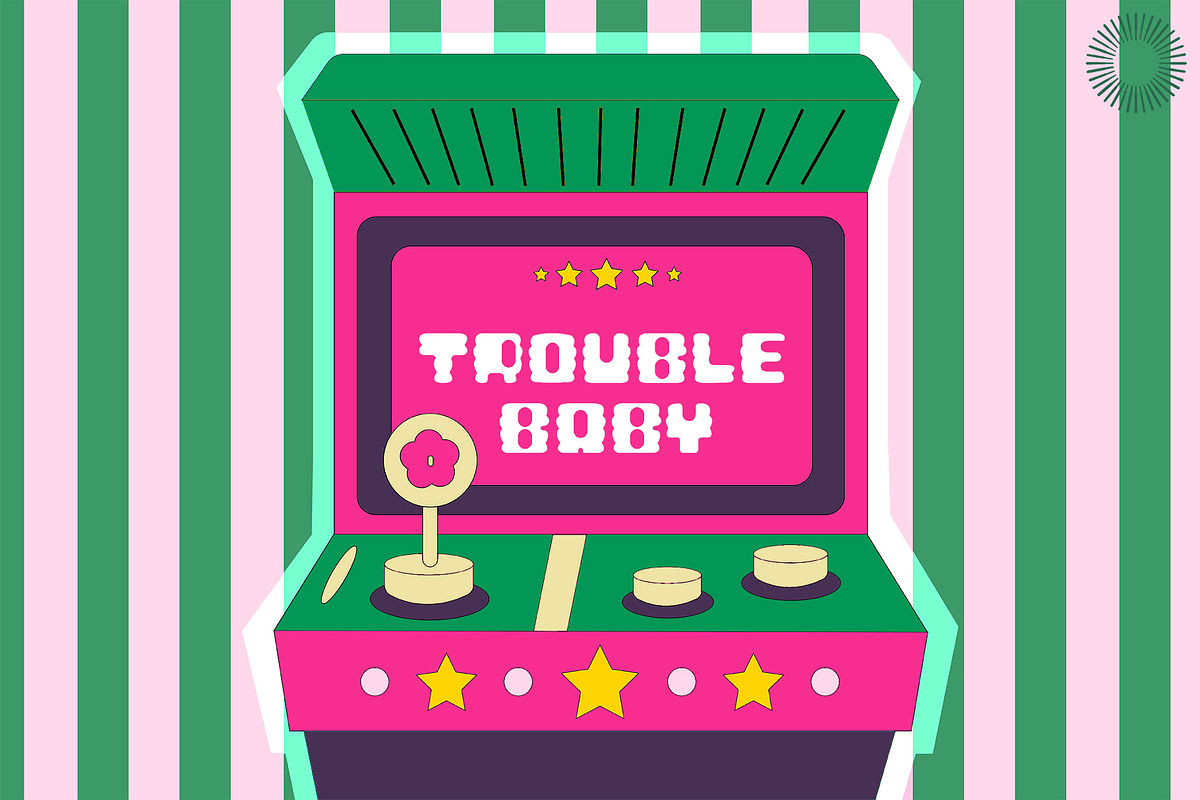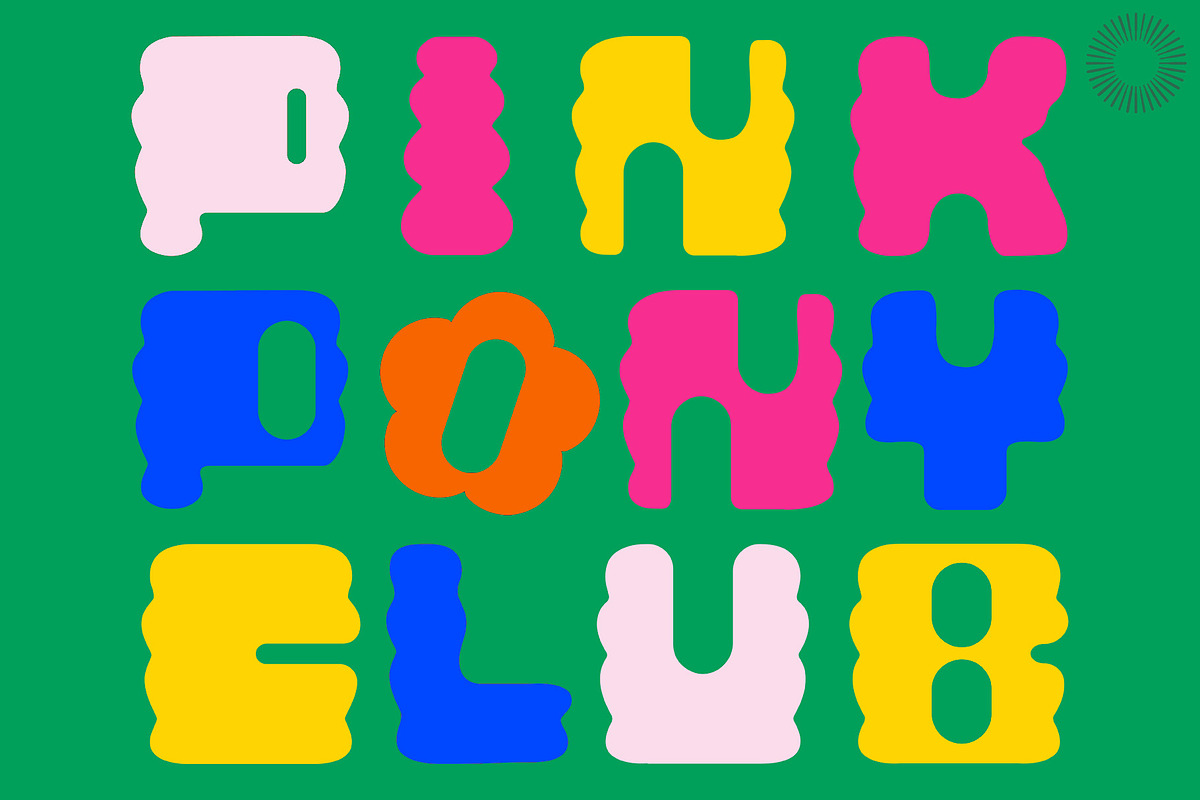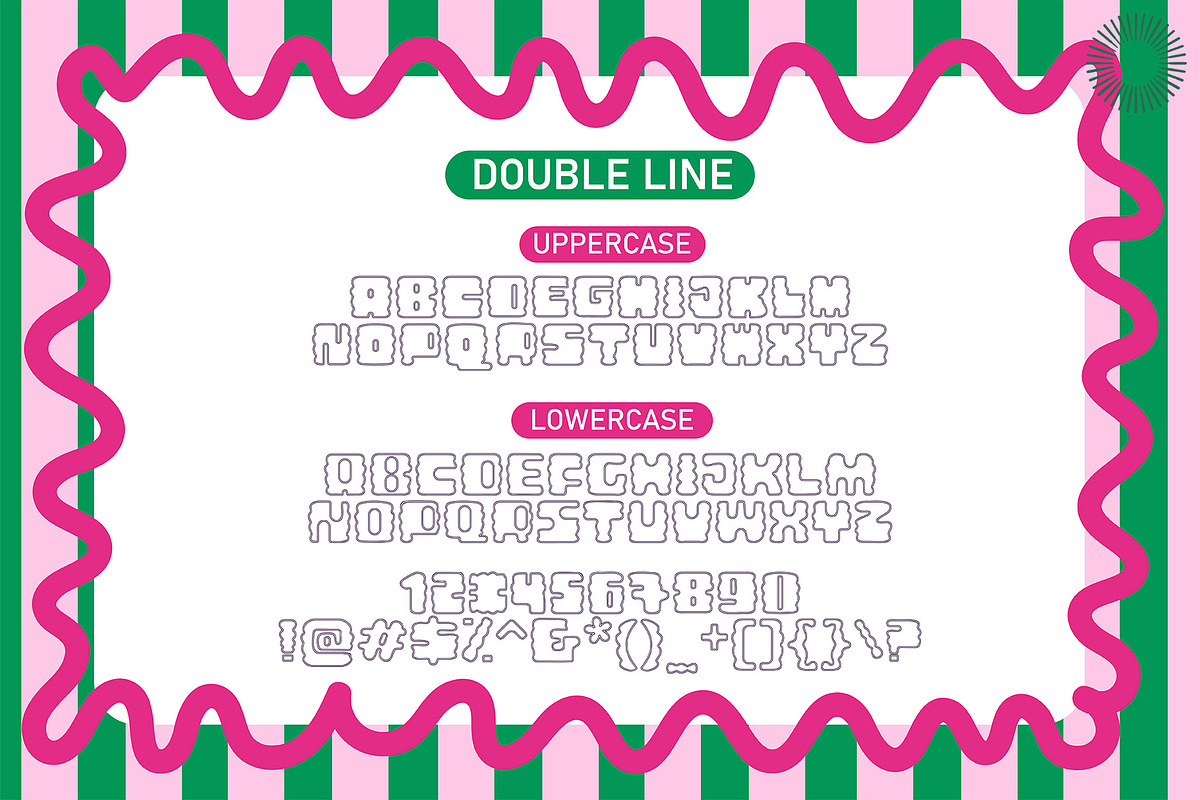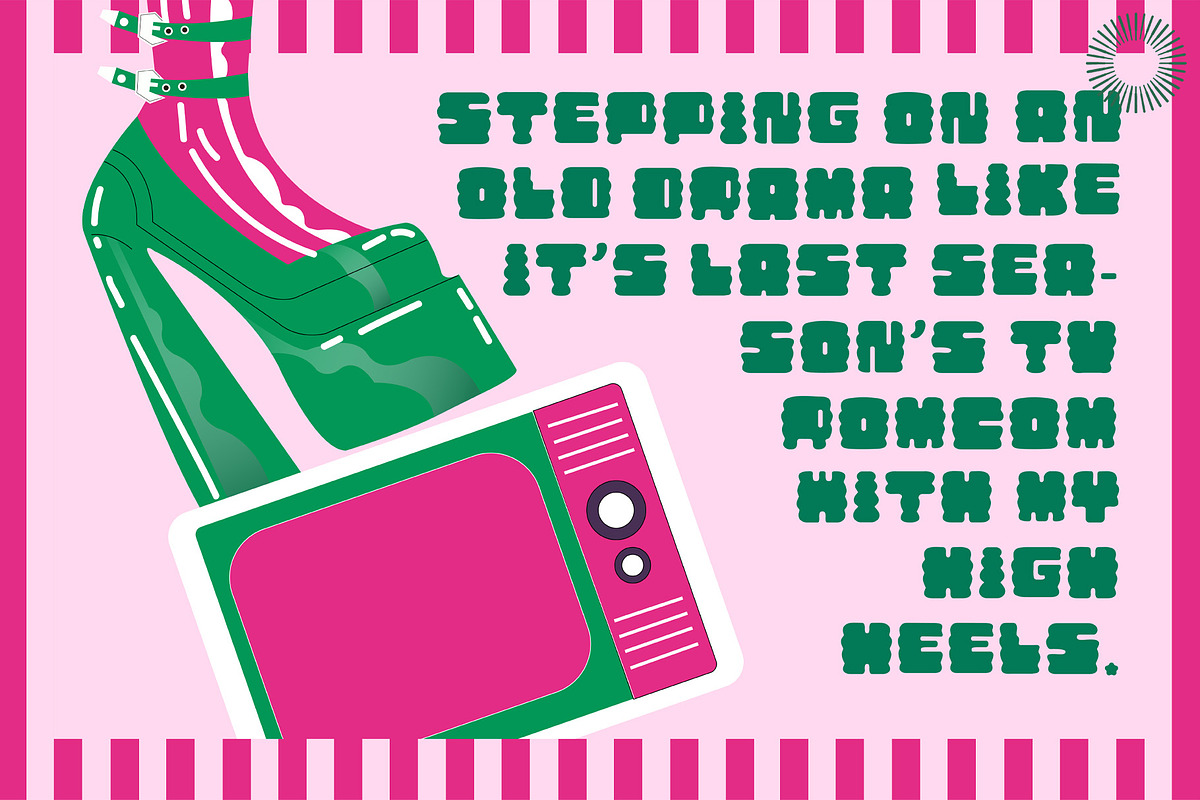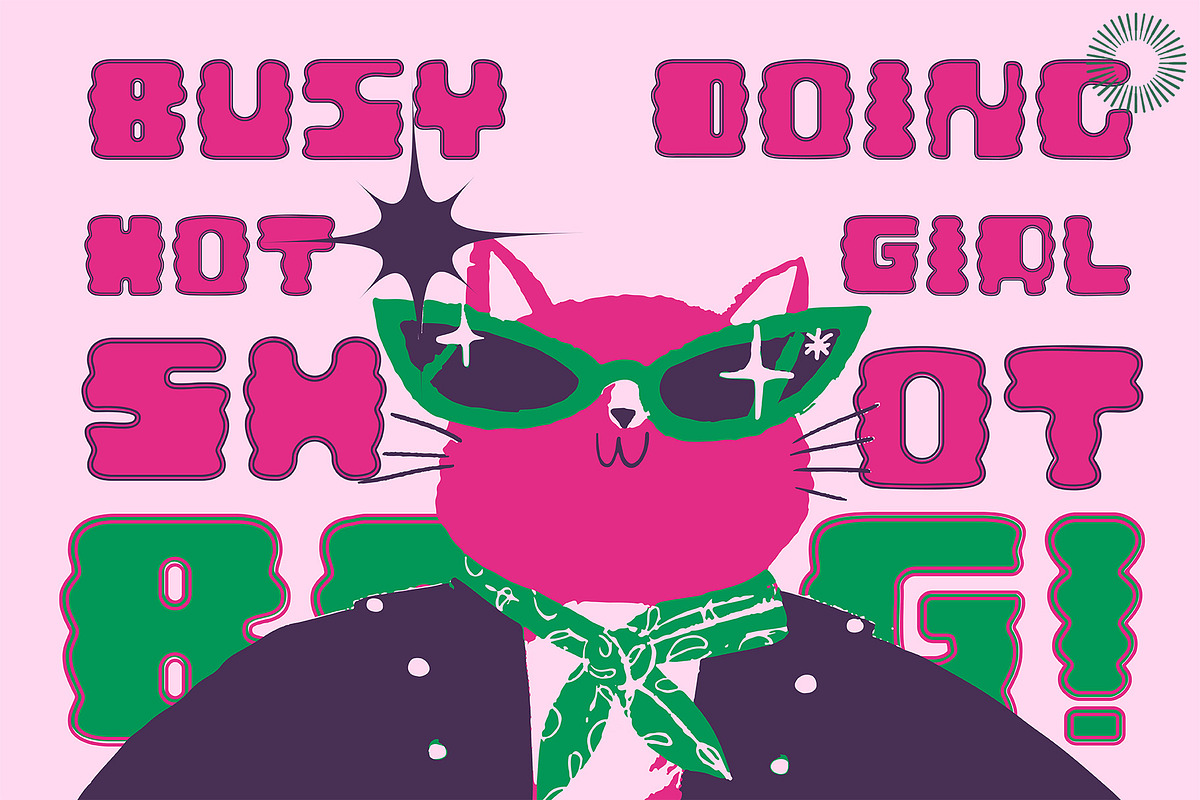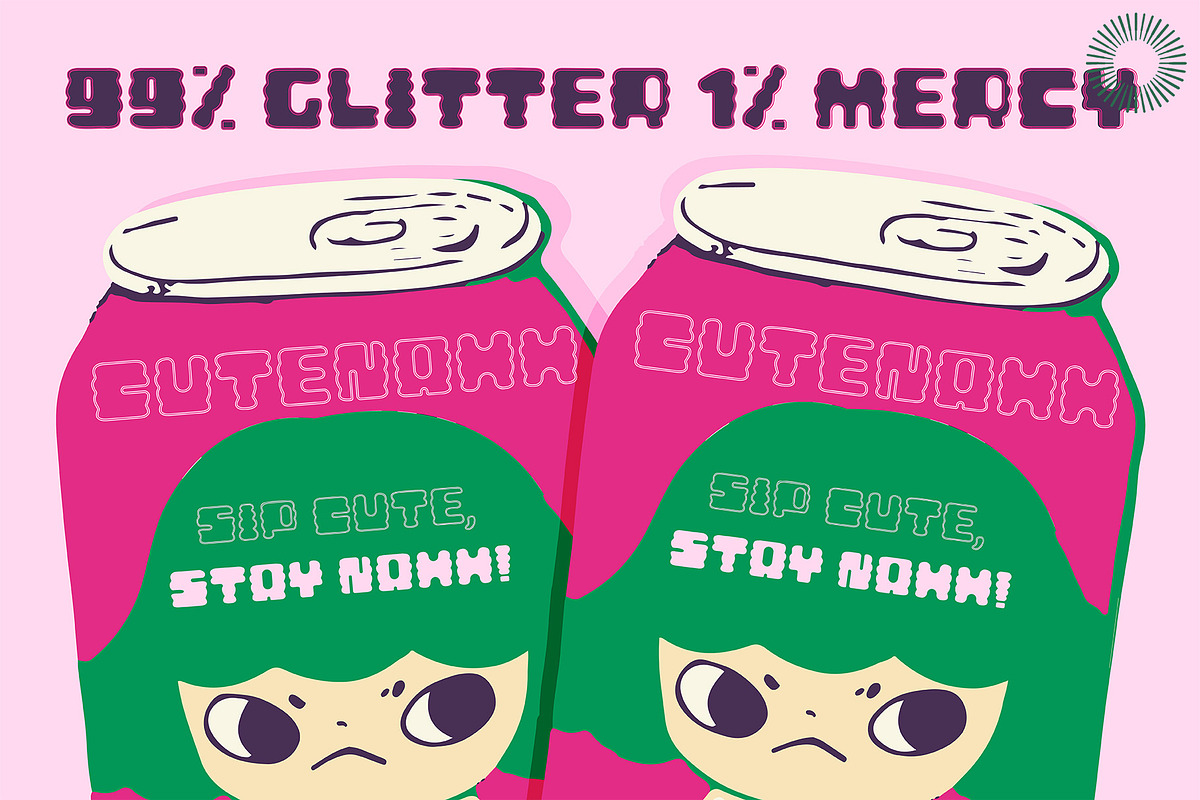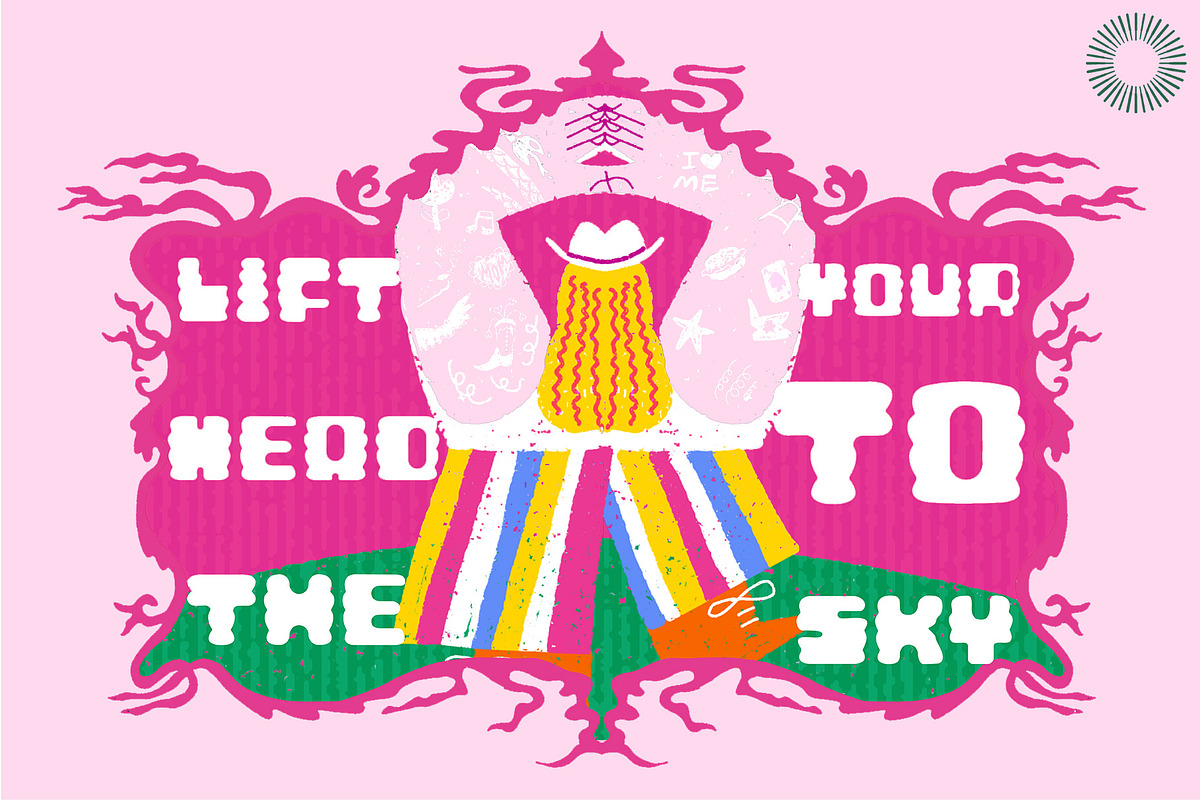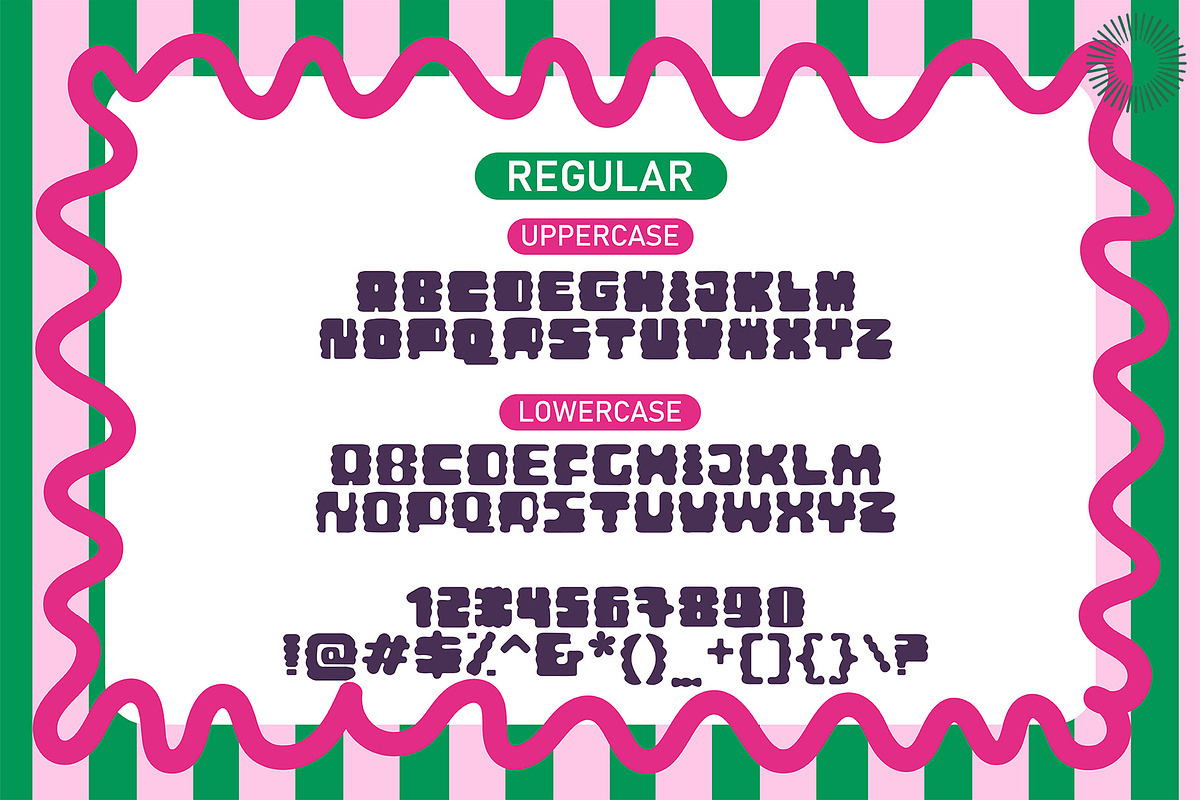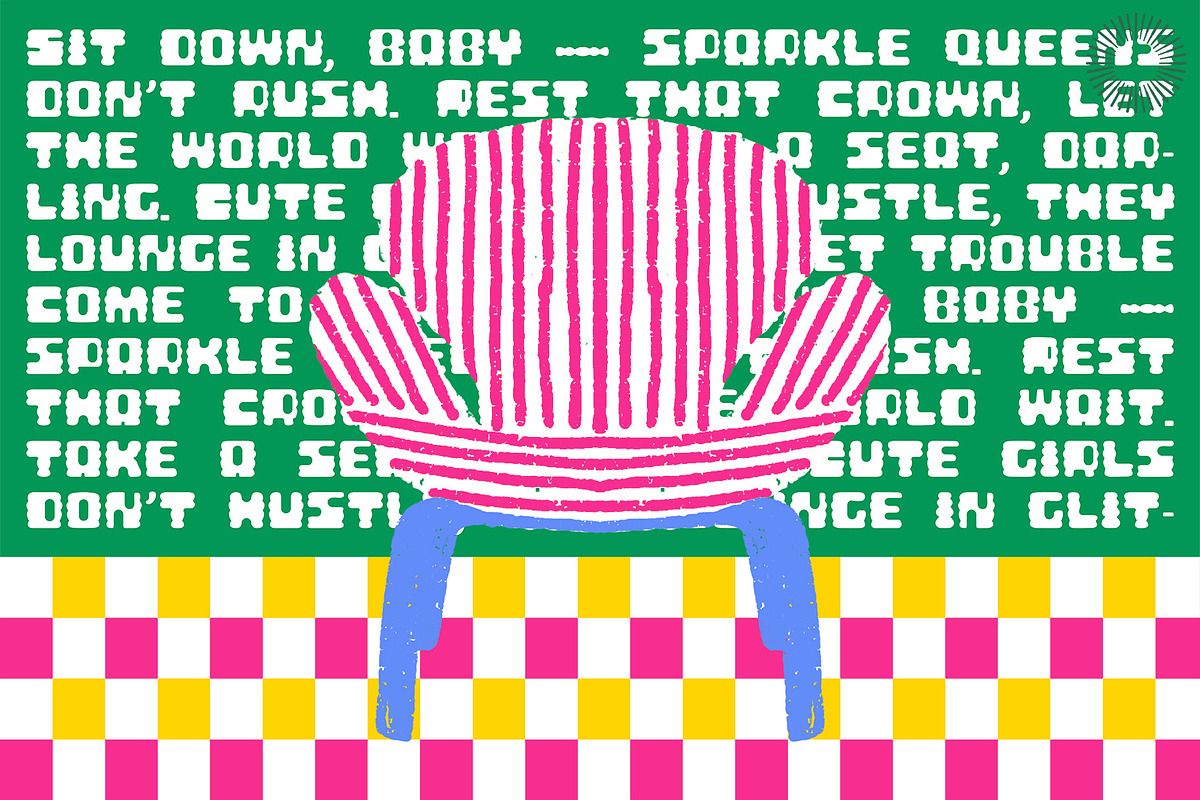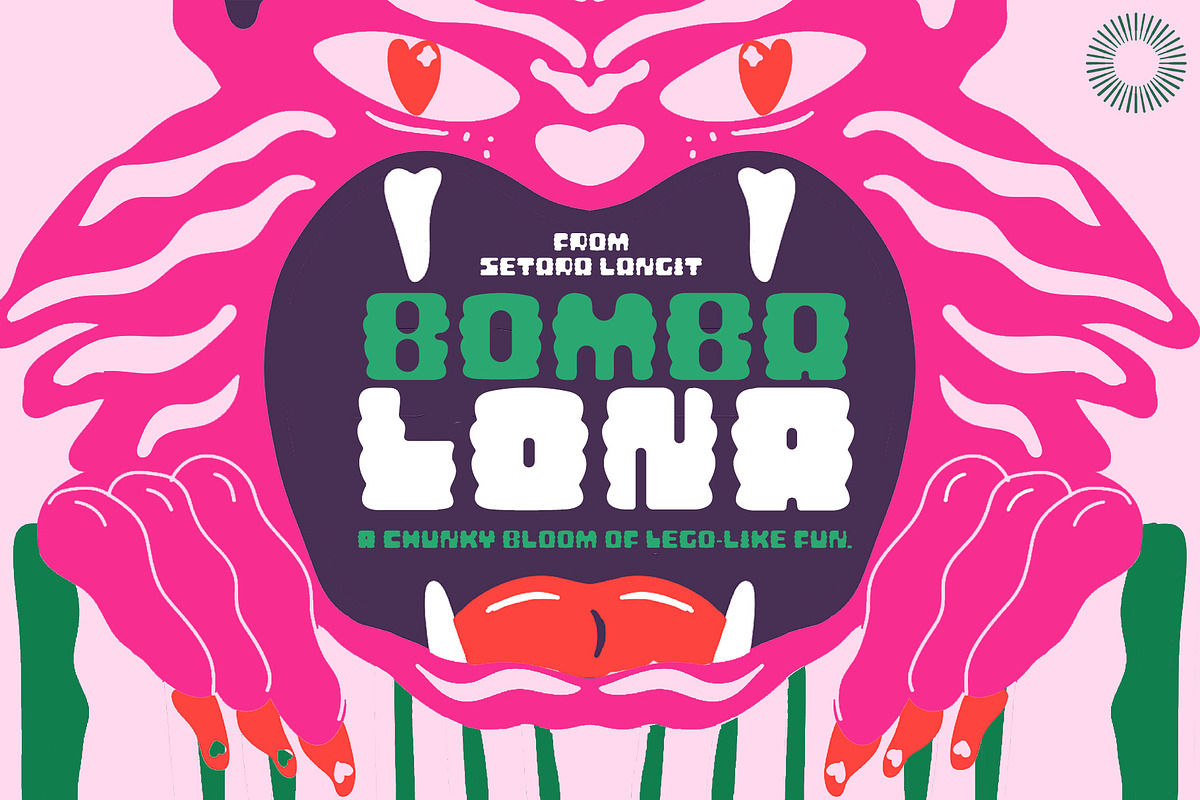
Bombalona - A Chunky bloom
Bombalona is a playful display typeface that feels like a mix between building blocks and blooming petals. Its chunky, wavy forms are bold and eye-catching, while still keeping a soft, friendly energy. Imagine stacking Lego pieces, but instead of rigid bricks, you get curvy, puzzle-like shapes that flow together with a touch of retro charm. This font is designed to spark joy and creativity, perfect for projects that need a big personality. From posters, packaging, and event graphics to branding that dares to stand out, Bombolona adds both fun and impact. Its bold curves give off a flower-power vibe, while its structured weight keeps it grounded, making it versatile for both playful and stylish designs. Whether you’re aiming for something nostalgic, experimental, or just bursting with life, Bombolona delivers a unique visual rhythm that feels both retro and refreshingly new.